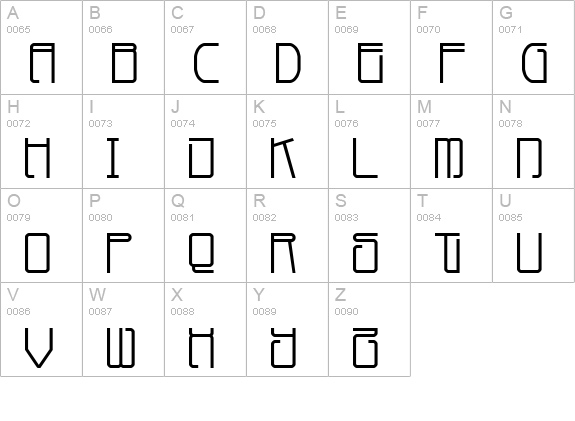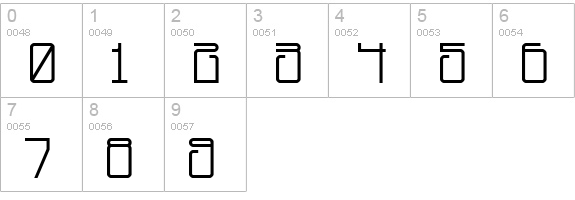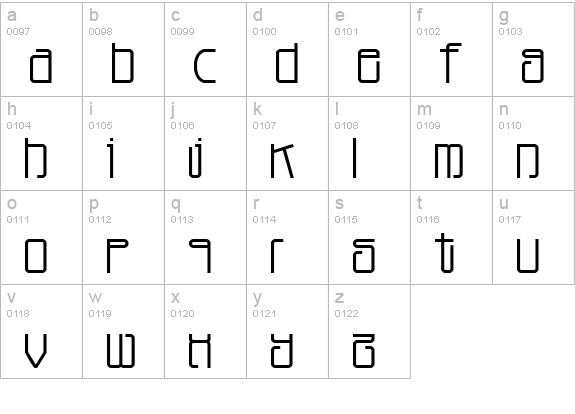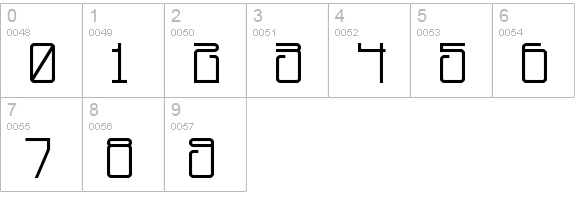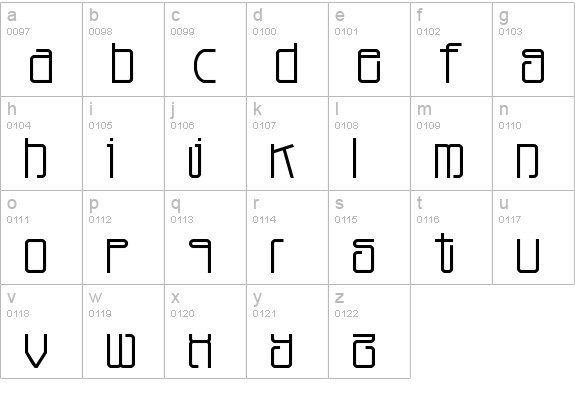
Planet Dust Font Details
Introducing Planet Dust, a captivating and versatile typeface that is sure to leave a lasting impression. Designed with meticulous attention to detail, this font is the perfect blend of modernity and vintage charm. Its unique and intricate lines evoke a sense of wonder and intrigue, making it ideal for a wide range of creative projects. Planet Dust is not only visually stunning, but it also offers incredible functionality. With a wide variety of weights and styles, this font can effortlessly adapt to any design concept, whether it be for branding, advertising, packaging, or editorial purposes. Its versatility ensures that your message will be conveyed with utmost clarity and impact. What sets Planet Dust apart is its ability to seamlessly combine elegance and playfulness. It effortlessly captures the essence of nostalgia, while still maintaining a fresh and contemporary feel. Its distinct personality shines through, allowing designers to create captivating visuals that are truly one-of-a-kind. And the best part? Planet Dust is absolutely free! Yes, you read that right. This extraordinary font is freely available to download at FontsMarket.com. So whether you are a professional designer looking to expand your font collection or a creative enthusiast eager to experiment with a new typeface, Planet Dust offers an incredible opportunity to enhance your creative endeavors without breaking the bank. So don't miss out on this remarkable font. Let Planet Dust elevate your designs and unlock a world of endless possibilities. Download it now at FontsMarket.com and experience the beauty and versatility of this truly exceptional typeface.